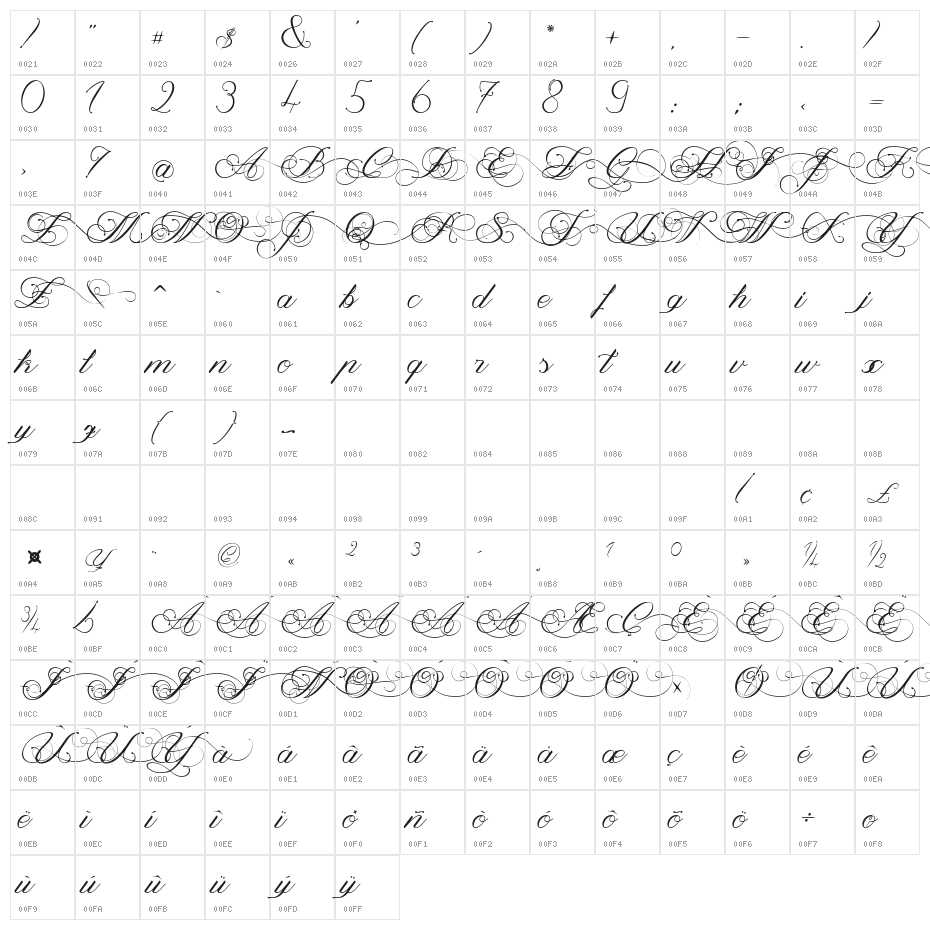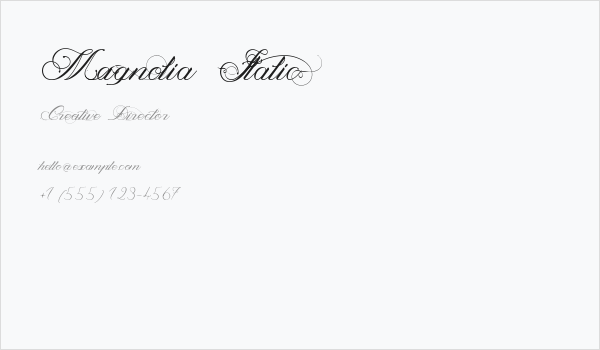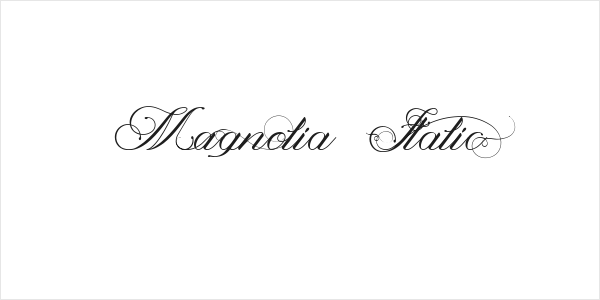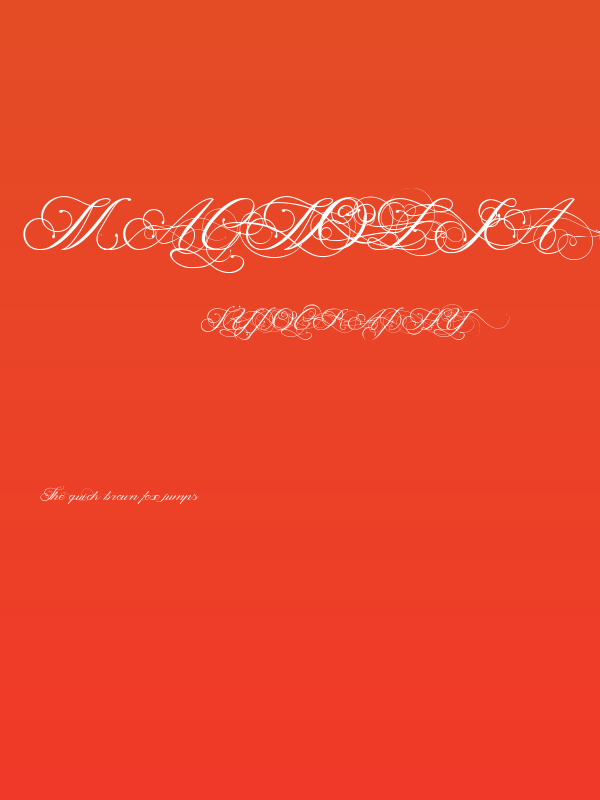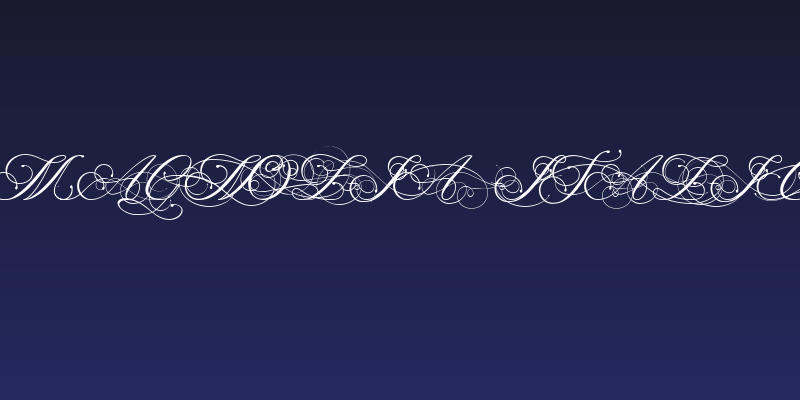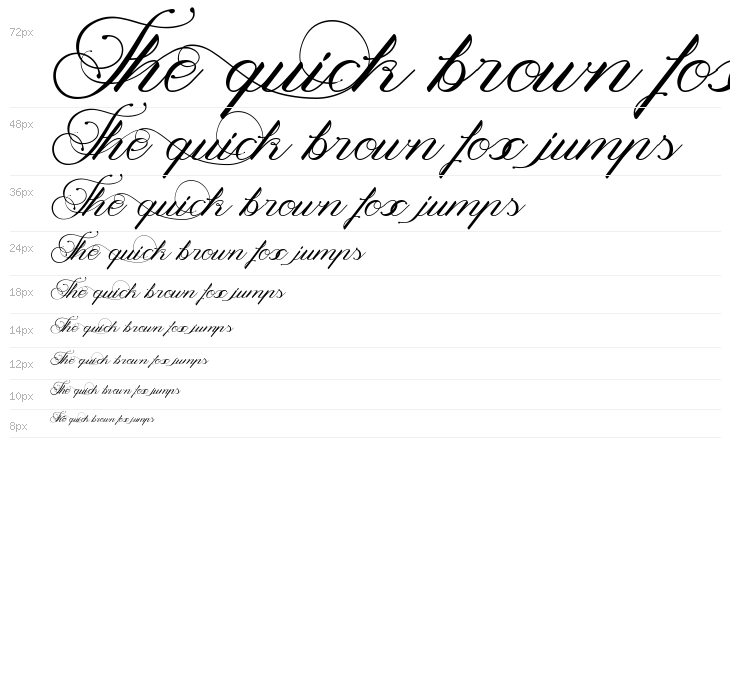
Magnolia Italic Font
Magnolia Italic Description
This font exudes elegance and sophistication with its intricate and flowing script style. The uppercase letters are adorned with elaborate swashes and flourishes, creating a sense of grandeur and formality. The lowercase letters maintain a graceful and fluid appearance, complementing the ornate uppercase characters. The numerals are stylishly curved, maintaining the overall aesthetic of the font. Special characters are equally decorative, adding to the font's luxurious feel. This font is perfect for projects that require a touch of elegance and refinement.
| Use Case | Logos, Invitations, Headlines |
| Proposed Projects | Ideal for wedding invitations, luxury branding, high-end product packaging, and elegant event signage. |